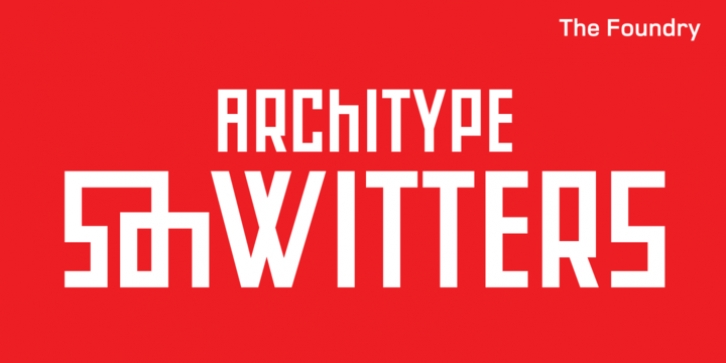
Architype Konstrukt is a collection of avant garde typefaces deriving mainly from the work of artists/designers of the inter-war years, whose ideals have helped to shape the design philosophies of the modernist movement in Europe. Due to their experimental nature character sets may be limited.
Architype Schwitters was developed from the phonetic experiments made by Kurt Schwitters with his 1927 universal alphabet, where he attempted to link sound and shape. He ‘played with’ using heavier, wider, rounded forms to convey the vowels, creating a unique visual speech texture.